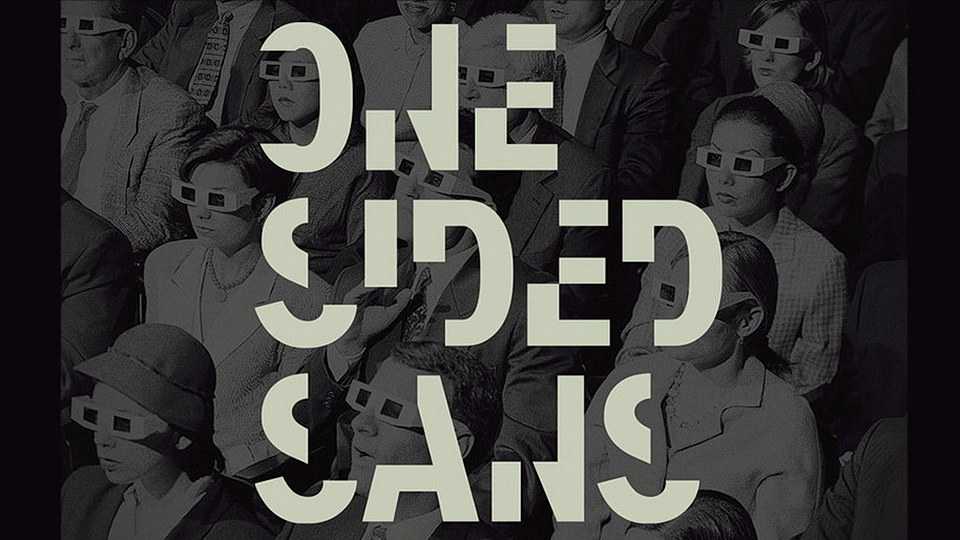
Download One-Sided Sans font, a disfluent typeface designed to prevent headline skimming. Portions of alphanumeric characters have been omitted so that only a partial view of the letters remain.
Designer: Jenny Fox